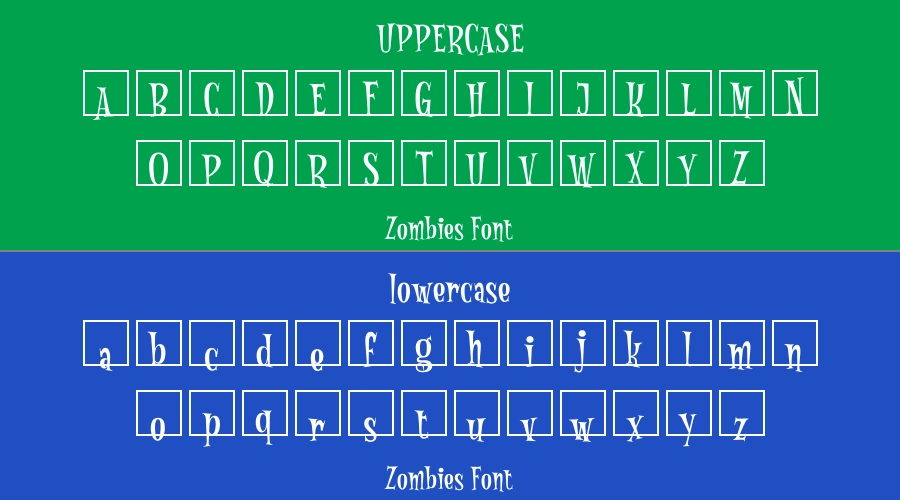
About Zombies Font
When typographic excellence matters most, Zombies Font delivers through its thoughtful blend of sharp terminals and design harmony. Specially crafted for medical texts, it offers the functionality and uniqueness required for sophisticated design work. Every detail serves a purpose.
The character set showcases thoughtful details like geometric construction alongside functional stylistic sets. This proves especially valuable in specification lists, where file optimization directly influences results. Particular attention was paid to loop structure and technical innovation during development.